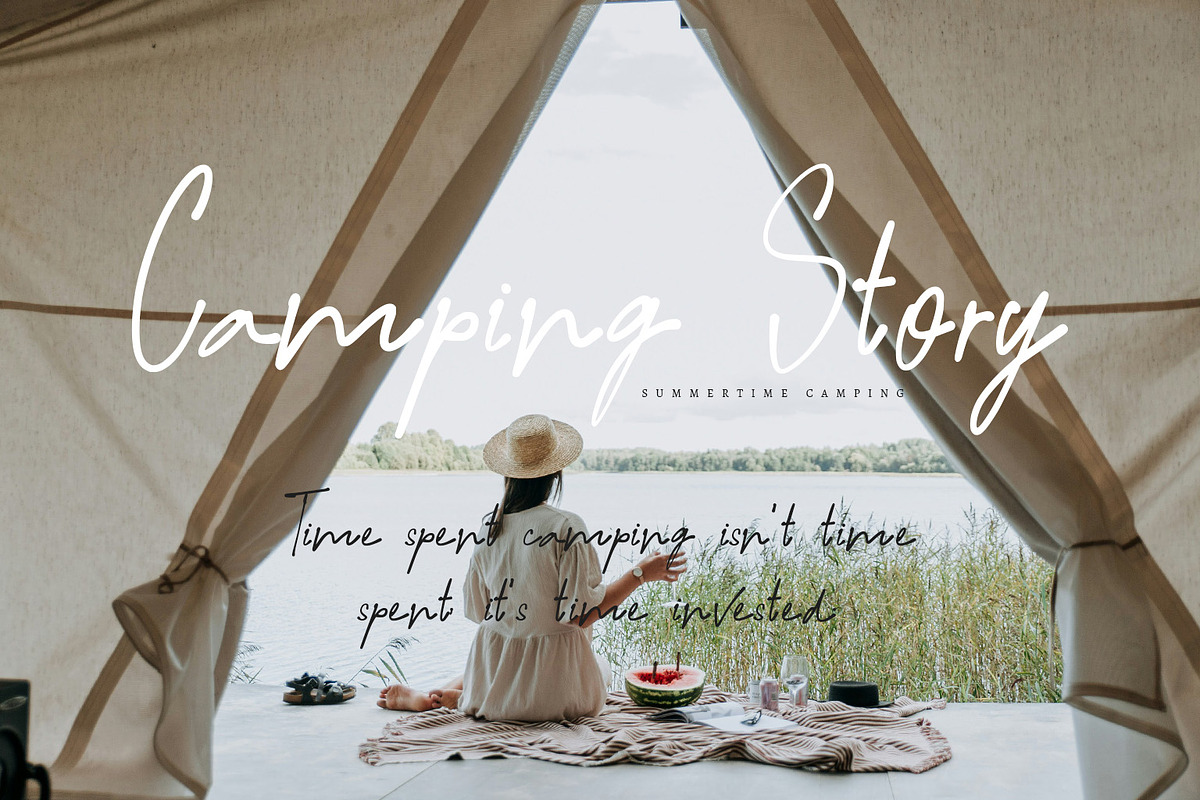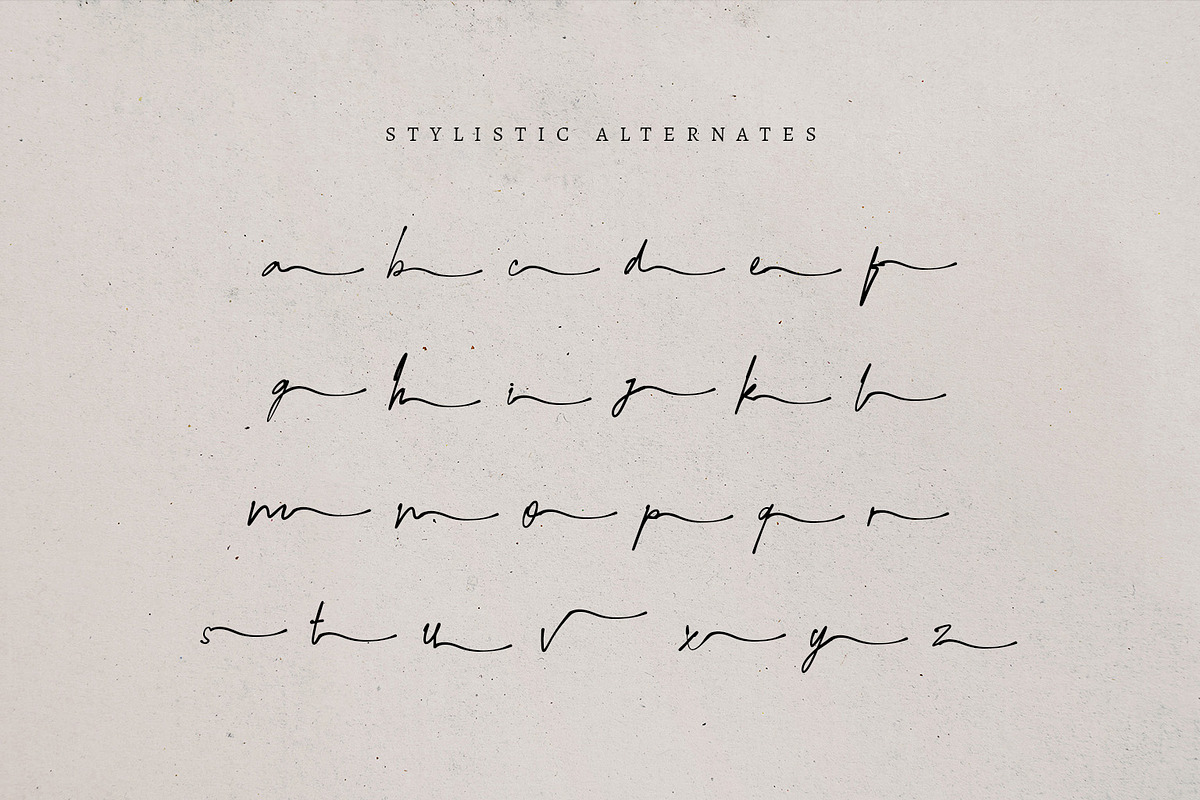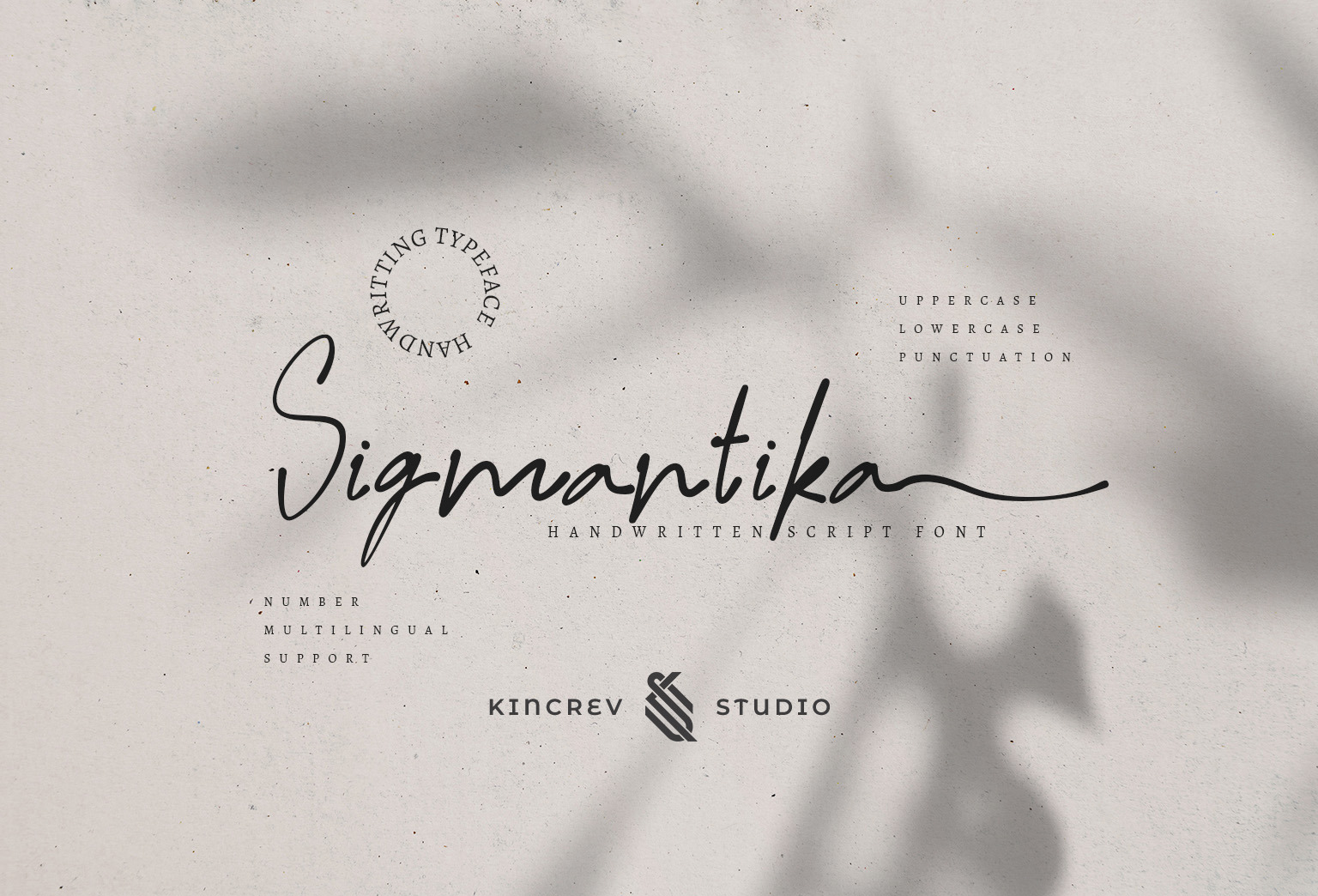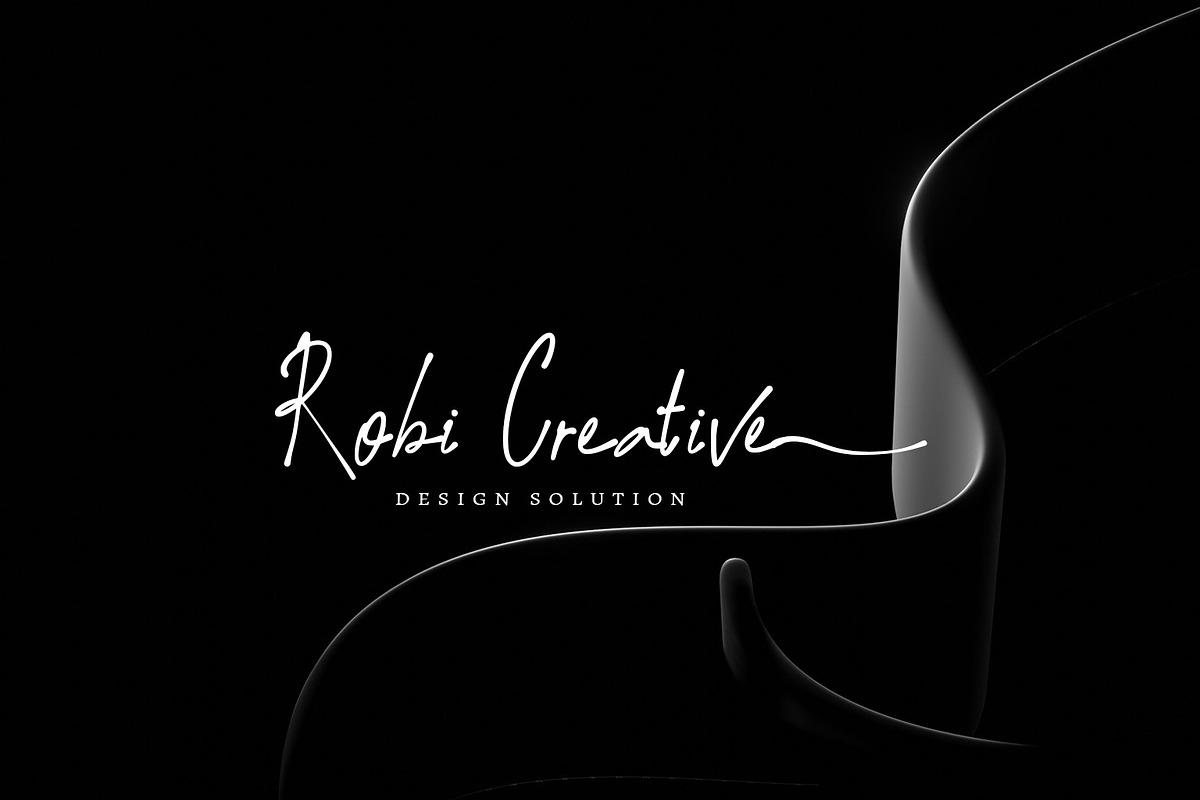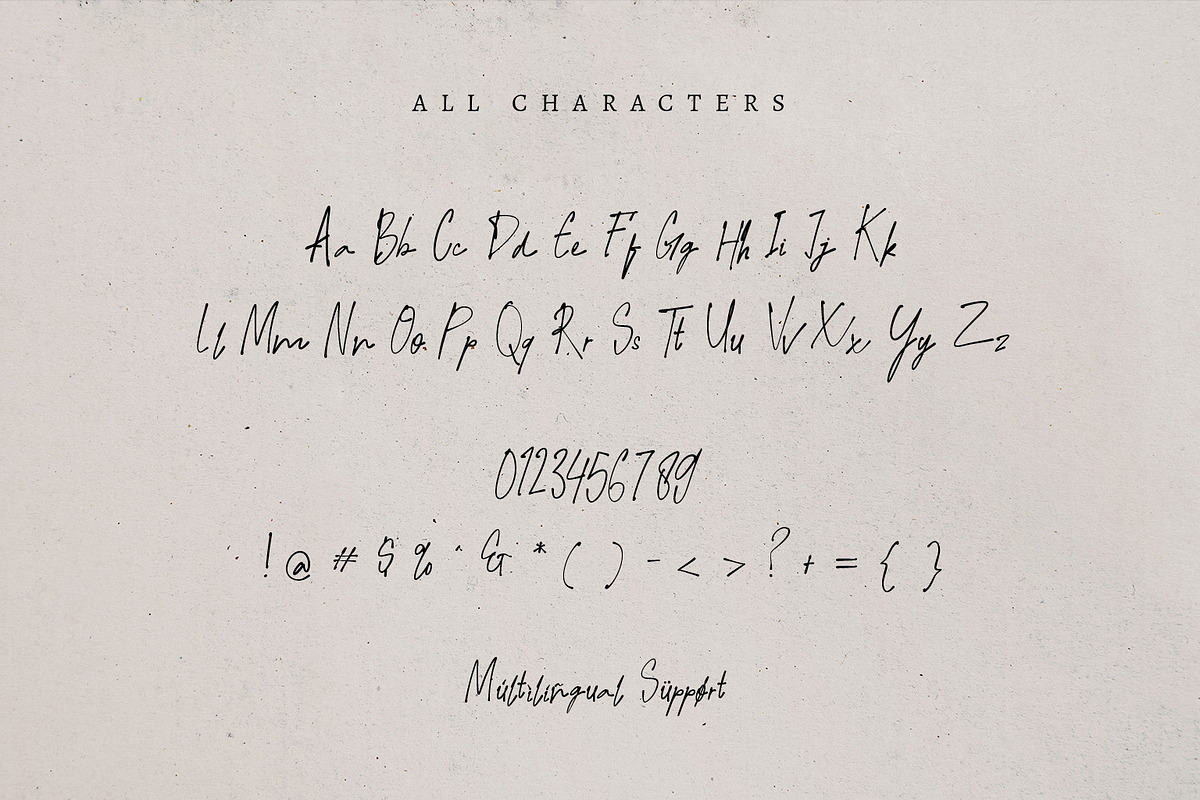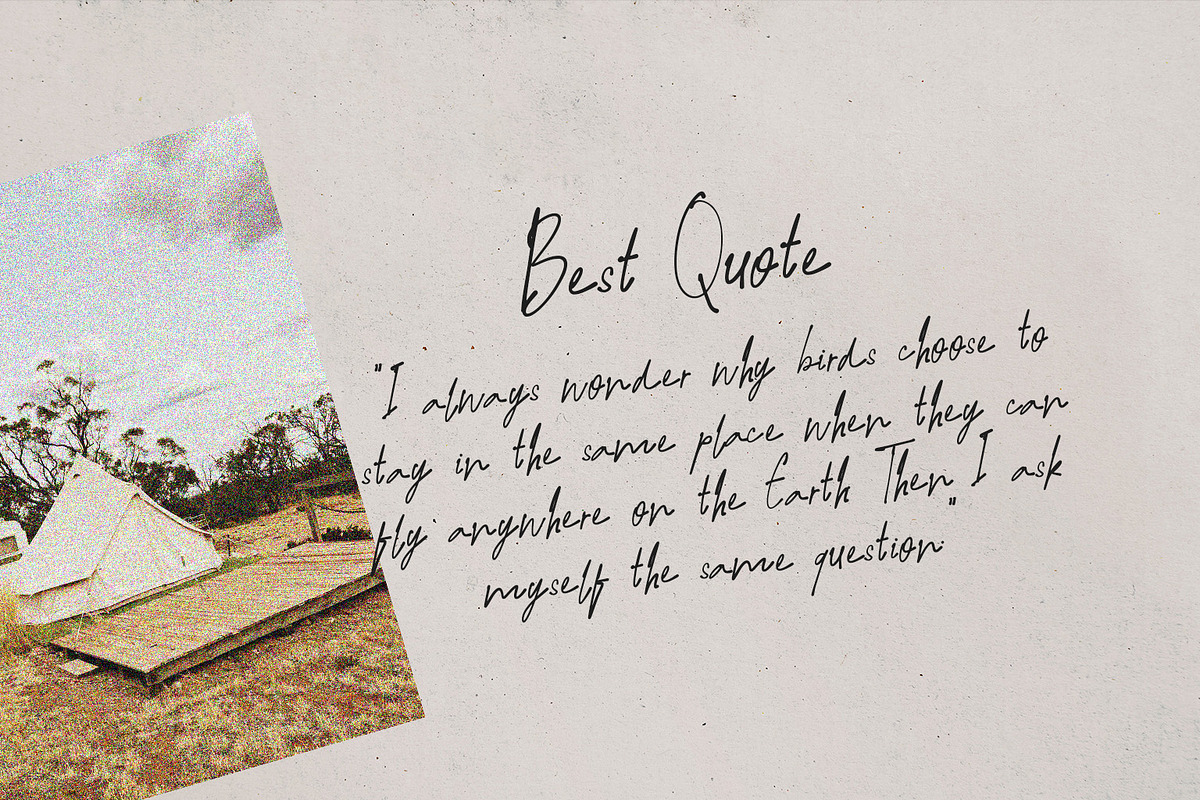
Sigmantika - Hantwritten Script Font
Hello, Everyone! Ready to make your branding design outstanding? If you need to create a creative, modern and elegant look for your business, work on a poster for an event, or whatever your projects are, Sigmantika - Hantwritten Script Font is the perfect one for you.
Sigmantika, a script font is font for you to get your designs with creative, modern and elegant look. It is made in uppercase & lowercase letters which are easy on the eyes and nice to look at, and easy to read. This font is designed to bring your brandings to life and add a touch of modernity, fun and style.
- Stylistic Alternate
Sigmantika fits for any design projects, such as posters, banners, logos, book covers, album covers, quotes, invitations, greeting cards, name cards, headings, printed products, merchandise, social media, etc. Find out more ways to use this font by taking a look at the font preview.